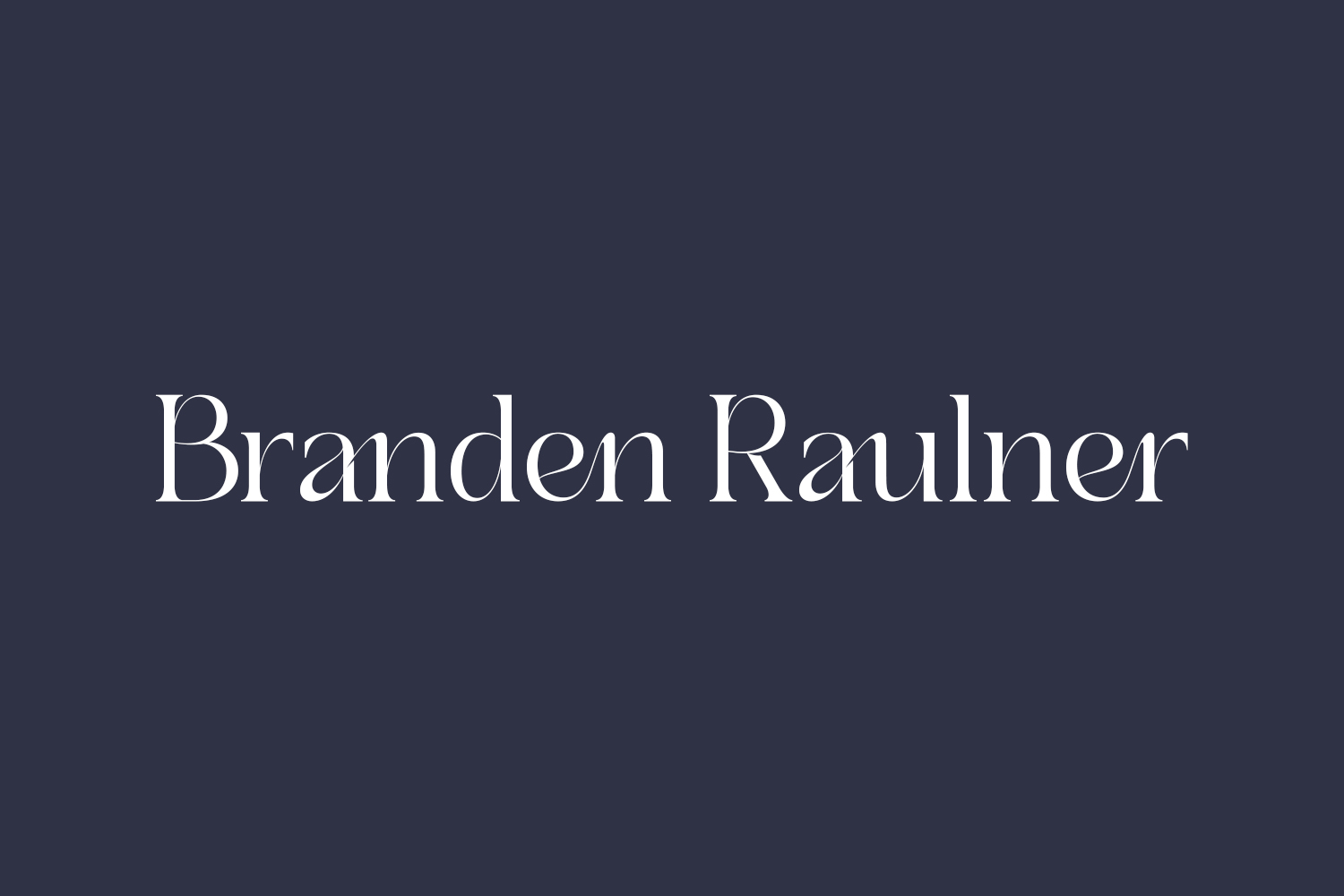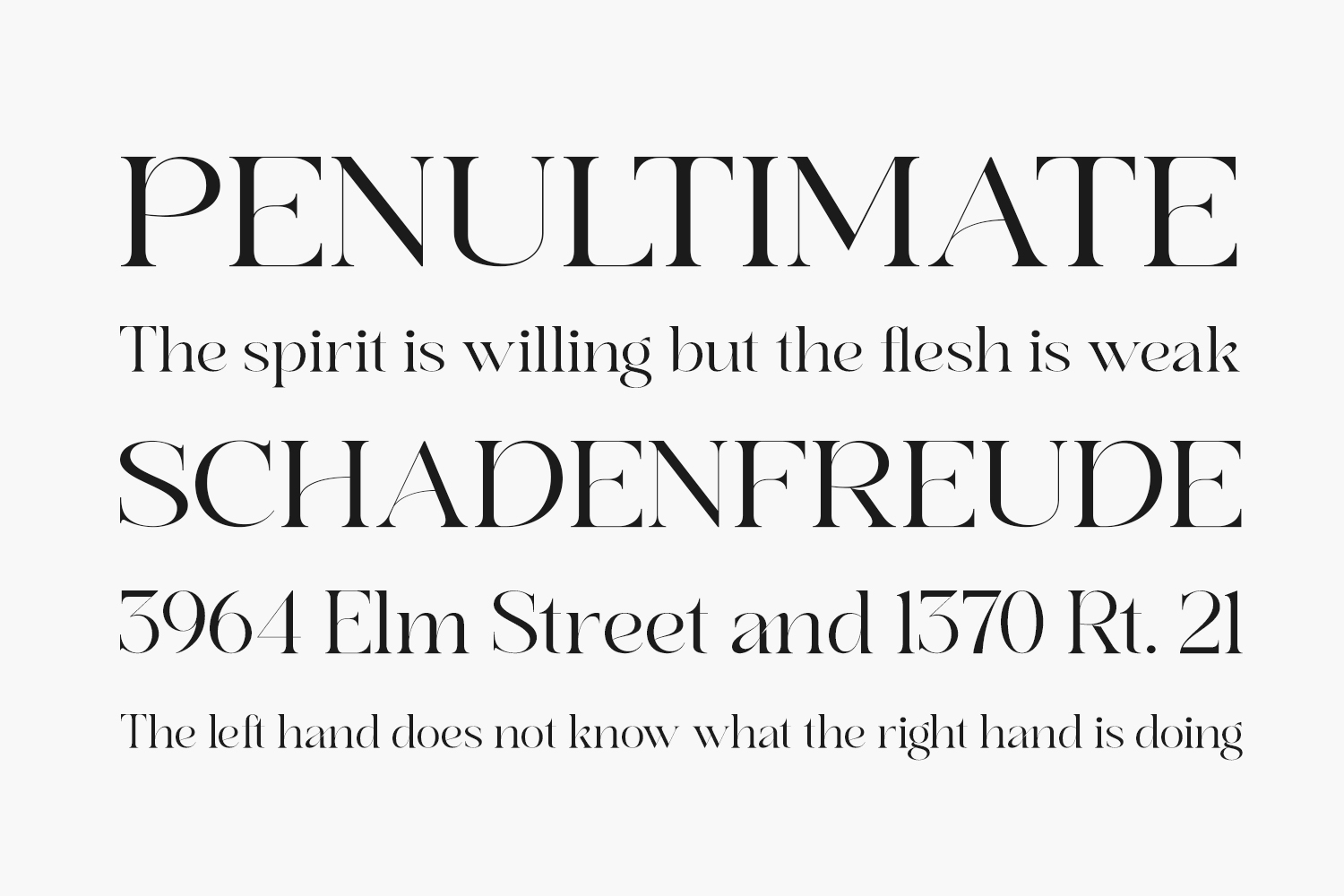
Discover the allure of Branden Raulner Free Font, a chic and captivating serif font distinguished by its graceful curves. Ideal for fashion branding and editorial designs, this stylish font opens up a world of creative possibilities for your projects. Elevate your designs with the unique charm of Branden Raulner. Download the font for free if you need it for personal use or purchase the full version for commercial use.